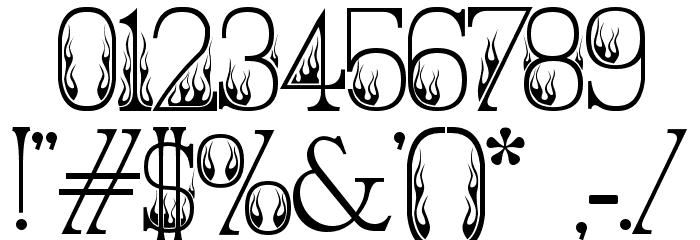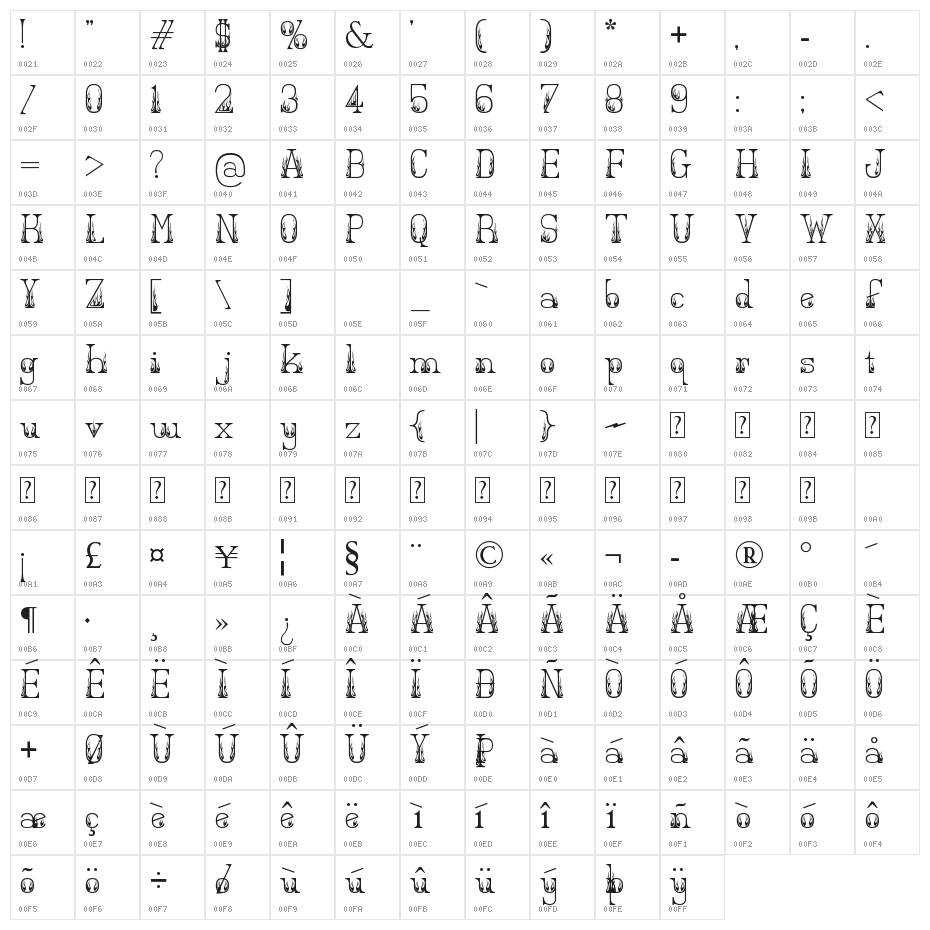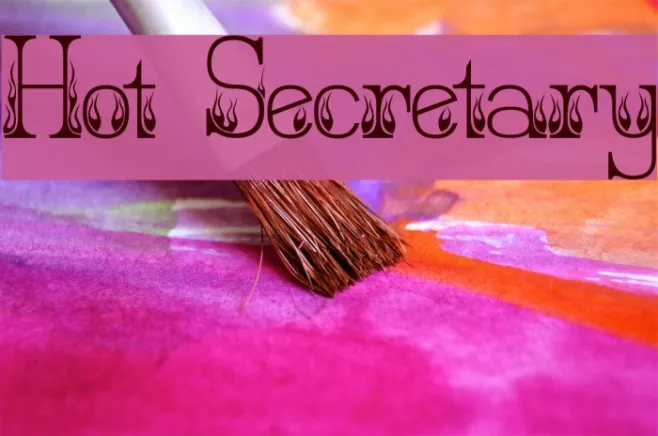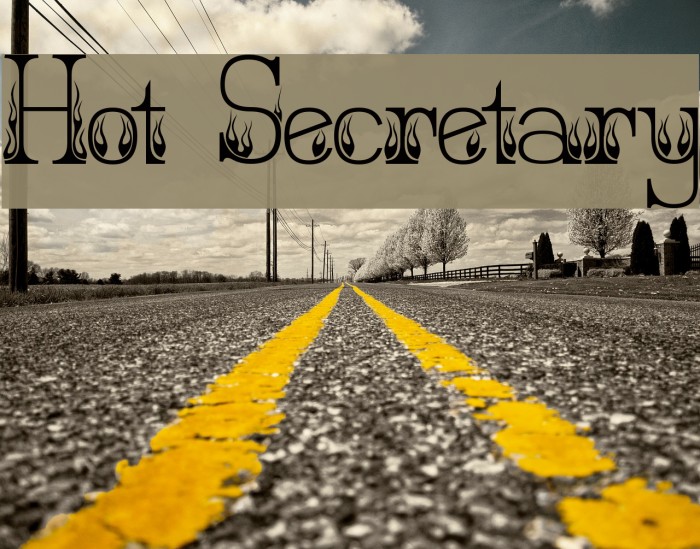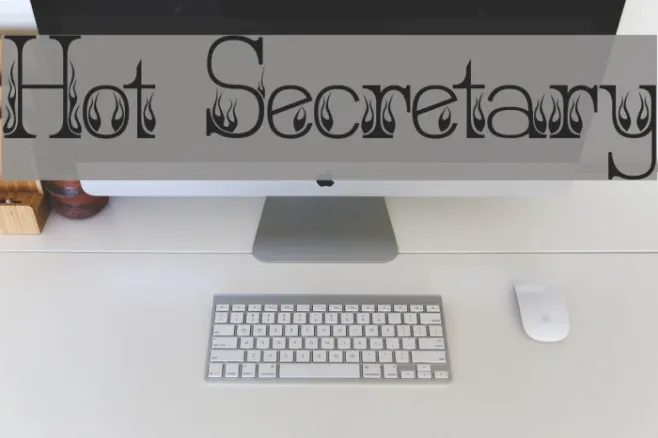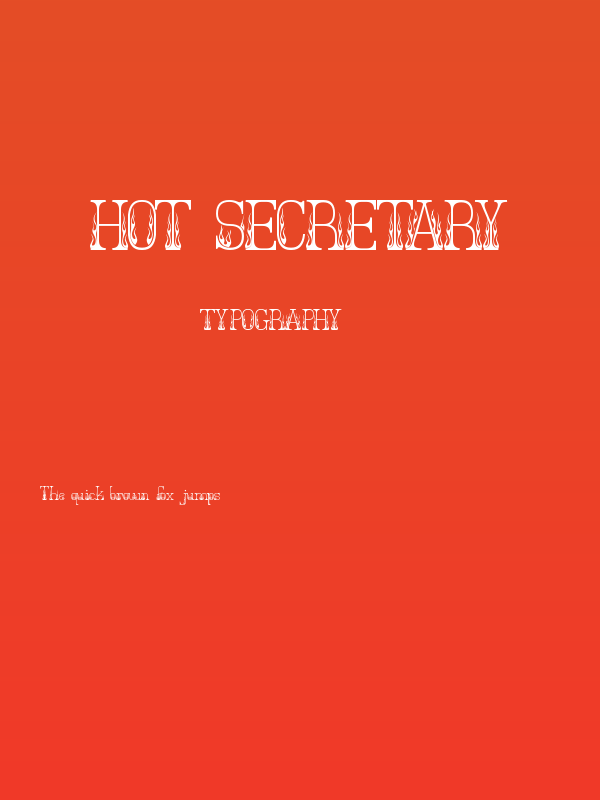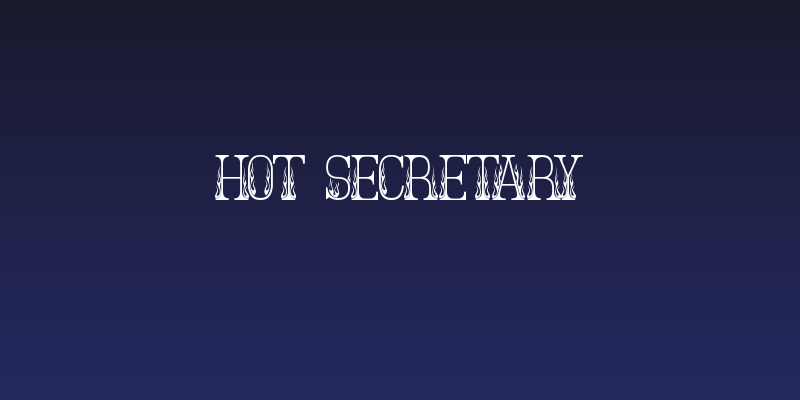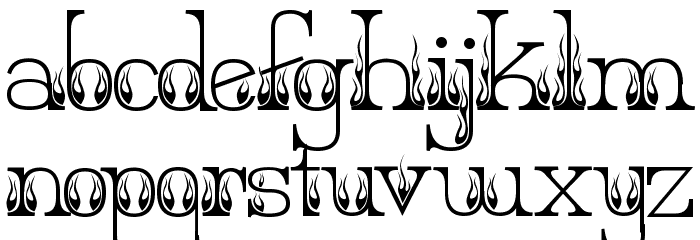
Hot Secretary Font
Hot Secretary Description
This font features a unique and striking design with flames integrated into the characters, giving it a fiery and dynamic appearance. The uppercase and lowercase letters, as well as numbers and special characters, all incorporate this flame motif, creating a cohesive and bold visual style. The characters are well-defined with a moderate stroke width, ensuring readability while maintaining the decorative elements. This font is ideal for projects that require a dramatic and eye-catching typeface, such as event posters, themed graphics, or branding that seeks to convey energy and intensity.
| Proposed Projects | Ideal for event posters, themed graphics, branding, and any project needing a dramatic and energetic typeface. |